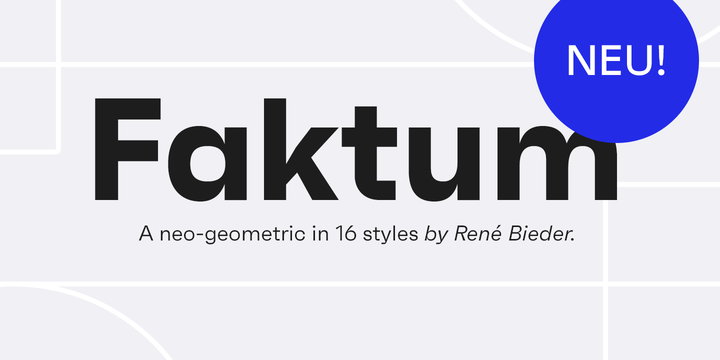
Faktum Font Family
A new modern sans font family. Introducing Faktum Sans Font. Faktum is an exploration into the geometric sans genre, inspired by Mid-century modern architecture and interior design. Especially the combination of clear lines, organic curves and geometric shapes, highly popular among designers and architects of the second third of the 20th century, gave the impetus for a design with clear modernist roots and a strong contemporary finish.